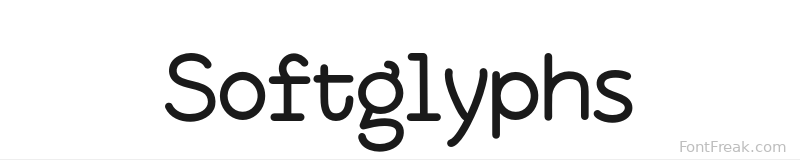
Softglyphs
Softglyphs by MJType is a captivating display font that combines an inviting aesthetic with a modern touch. Released in 2023, this freeware typeface features a rounded, sans-serif design characterized by soft edges and a playful demeanor. The stroke weight remains consistent throughout, lending a sense of harmony and balance, while its ample spacing enhances readability and adds a contemporary feel. The overall visual appeal is further enriched by the subtle curves that evoke a feeling of warmth and friendliness.
This font is ideal for a variety of creative applications. Its charming character makes it perfect for wedding invitations, where a personal touch is essential. Additionally, it shines in the realm of children's book covers, where its whimsical nature can capture the imagination of young readers. Restaurant menus also benefit from Softglyphs, as its approachable style can convey a sense of comfort and familiarity, inviting patrons to explore the offerings. Furthermore, it works well for branding materials, especially for small businesses looking to create a unique identity that stands out in a crowded marketplace.
The target audience for Softglyphs includes graphic designers, small business owners, content creators, and anyone in need of a versatile yet distinctive typeface. Its user-friendly design and free license make it accessible for various projects, allowing creators to experiment without financial constraints.
What truly sets Softglyphs apart is its ability to blend modern design with warmth, making it a versatile choice for both formal and informal contexts. Whether you're designing a heartfelt invitation or a cheerful advertisement, the Softglyphs font free download offers an engaging option that can elevate your creative work.